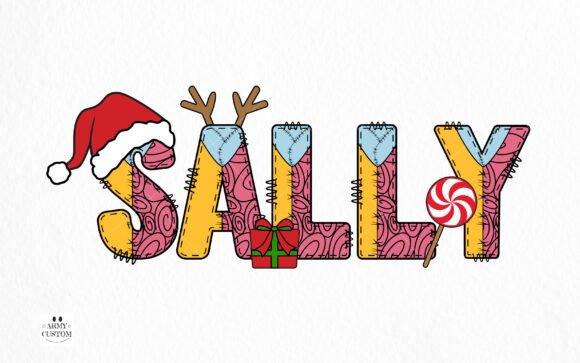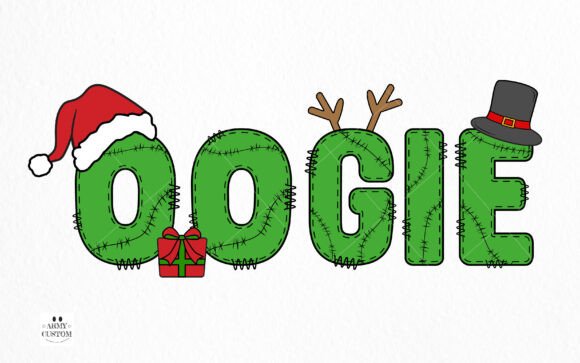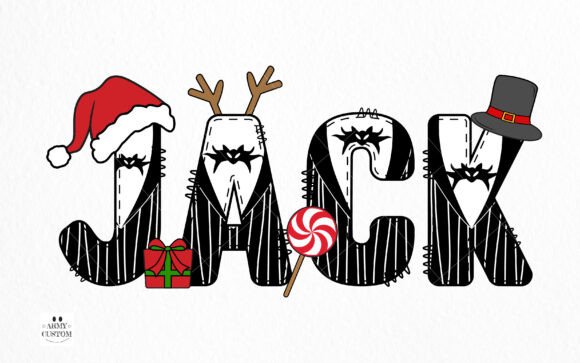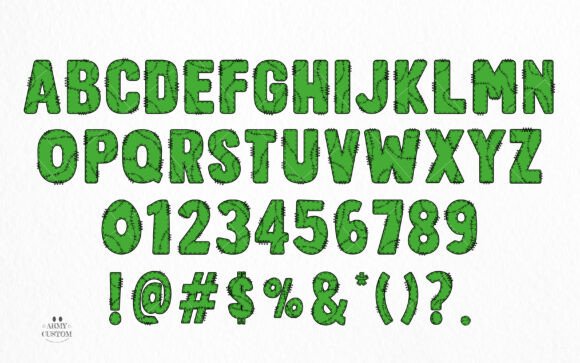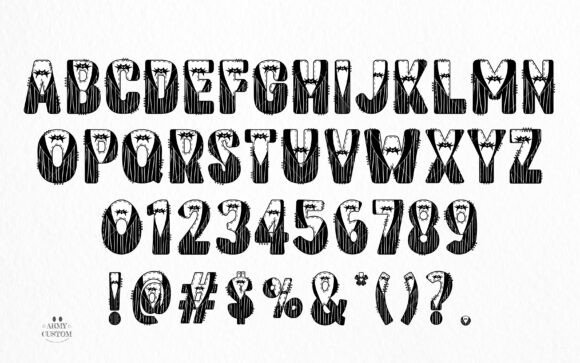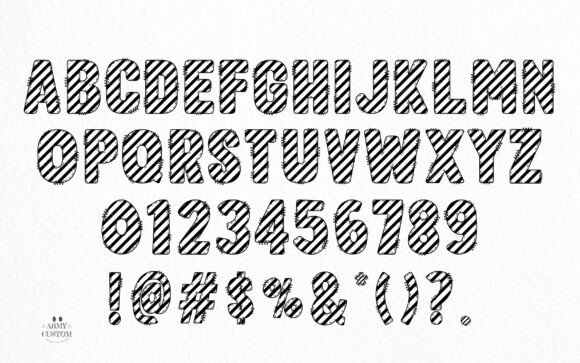
Introducing the Christmas Movie Bundle Font: A Whimsical Addition to Your Holiday Design Toolkit
Are you looking for a font that captures the essence of the holiday season? Look no further than the Christmas Movie Bundle Font! This delightful font is designed to bring a sense of whimsy and playfulness to your festive projects. With its jovial style, it’s the perfect choice for creating vibrant holiday decorations or adding a dash of merriment to any design project.
Inspired by the Magic of Christmas
The Christmas Movie Bundle Font is inspired by the adorable antics of Santa’s helpers, bringing a sense of joy and celebration to every letter. This charming, elfish font is sure to become a favorite in your holiday design toolkit. Whether you’re a designer, crafter, or DIY enthusiast, this font is sure to elevate your projects and spread holiday cheer.
Bringing Holiday Cheer to Your Designs
With the Christmas Movie Bundle Font, you can add a touch of holiday magic to any design project. Imagine creating:
- Vibrant holiday decorations that shine with festive flair
- Joyful greeting cards that spread cheer to loved ones
- Playful party invitations that set the tone for a fun celebration
- Delightful DIY projects that showcase your creativity
Whether you’re a seasoned designer or a crafting novice, this font is easy to use and sure to bring a smile to your face. So why settle for a boring, generic font when you can add a dash of holiday whimsy to your designs?
The Christmas Movie Bundle Font is a playful and charming addition to any holiday design toolkit. With its whimsical style and compatibility with various design programs, it’s the perfect choice for designers, crafters, and DIY enthusiasts alike. So why wait? Indulge in the spirit of the holiday season with this delightful font and bring joy and cheer to your designs!